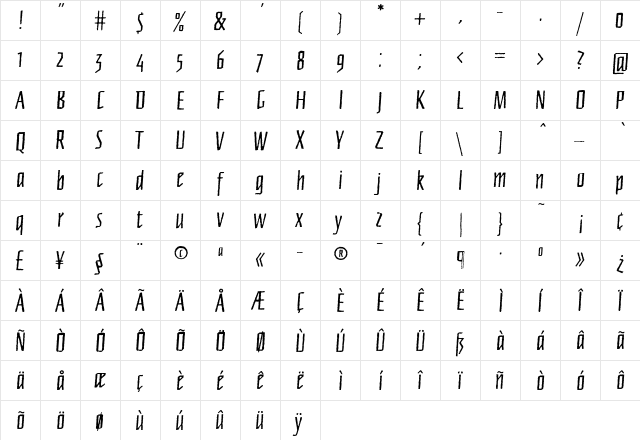
FFNewberlin-Rough Medium
Design Context for FFNewberlin-Rough Typeface
FFNewberlin-Rough embraces imperfection — its rough, textured character adds raw authenticity to designs that want to feel lived-in and unconventional.
A strong fit for alternative music projects, graffiti-adjacent design, and anything that deliberately resists polish.
Pro Tip: Use FFNewberlin-Rough at larger sizes where the texture and irregularity of each letterform can be clearly seen — it loses its character at small sizes.